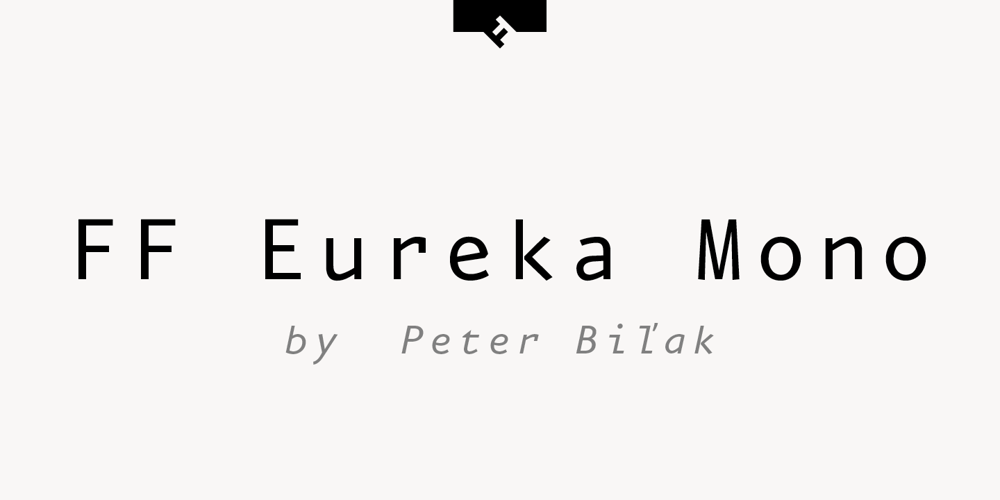
FF Eureka Mono Font Family was designed by Peter Bil’ak and published by FontFont. FF Eureka Mono contains 20 styles and family package options. Slovakian type designer Peter Bil’ak created this sans FontFont in 2001. The family has 20 weights, ranging from Light to Black in Condensed and Medium (including italics) and is ideally suited for book text and editorial and publishing. FF Eureka Mono provides advanced typographical support with features such as ligatures, alternate characters, case-sensitive forms, super- and subscript characters, and stylistic alternates. It comes with tabular lining figures. This FontFont is a member of the FF Eureka super family, which also includes FF Eureka and FF Eureka Sans.